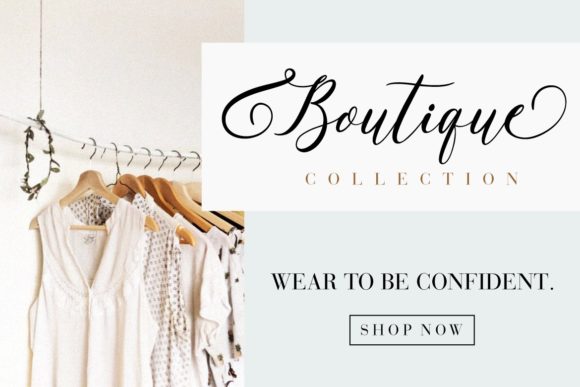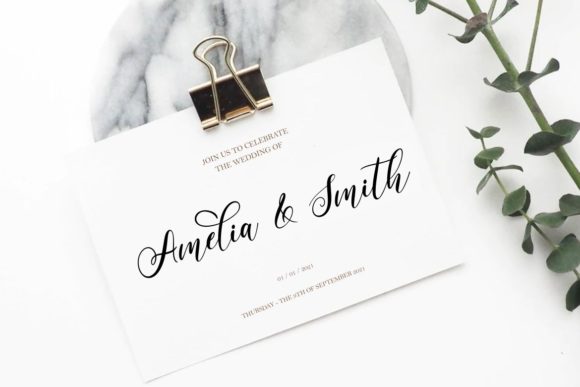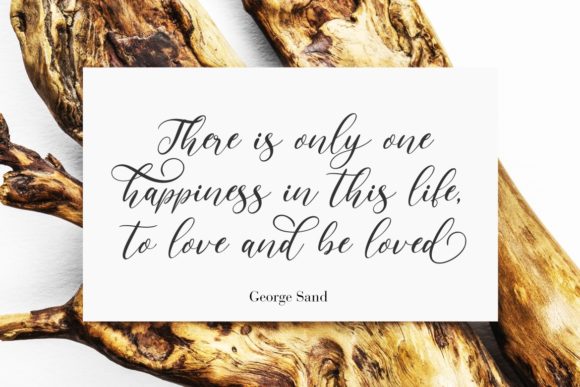
Introduction to Labajo Font
Labajo is a lovely and delicate script font that exudes elegance and class.
This font was particularly crafted for those who need a beautiful and refreshing look to their designs Labajo is PUA encoded which means you can access all of the glyphs and swashes with ease.
Labajo Font offers exceptional quality and versatility, making it a valuable addition to your design toolkit. Whether you’re creating for personal projects or commercial use, Labajo Font delivers professional results.